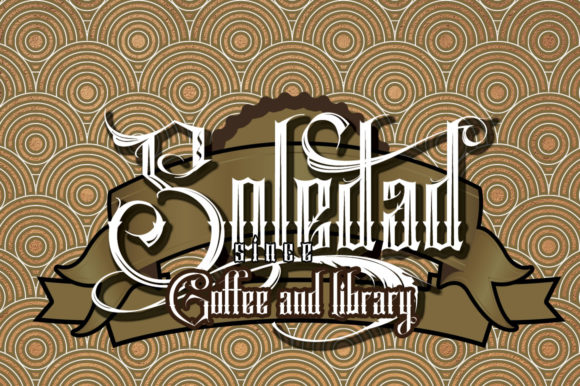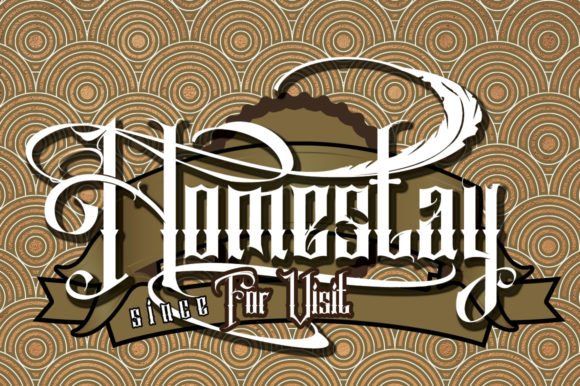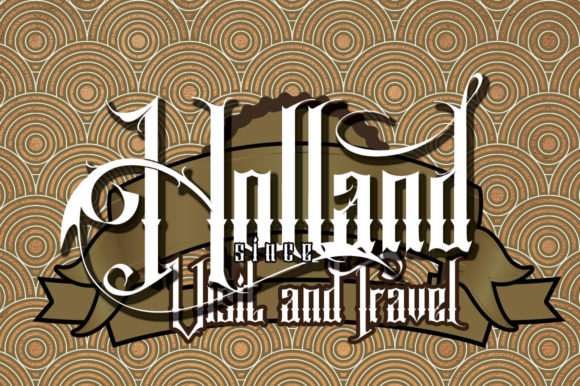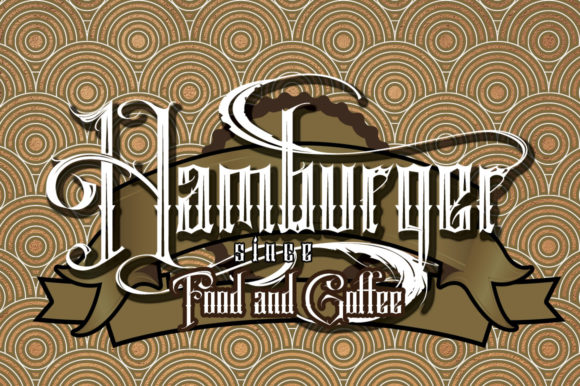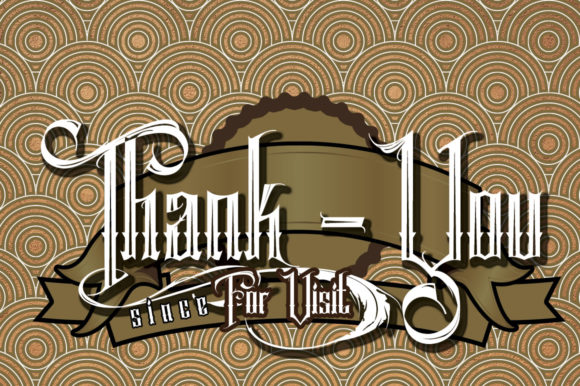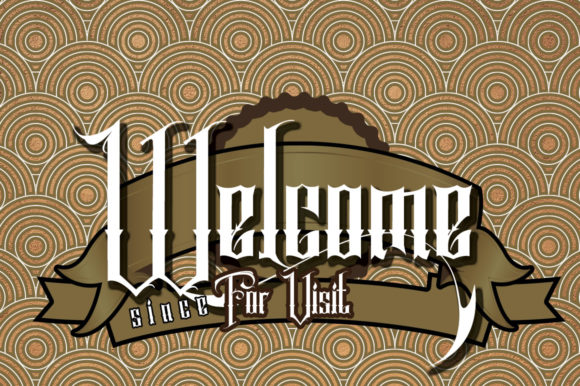
The Blackfire Font: A Striking Typeface to Elevate Your Design
The Blackfire font is a striking typeface that boasts decorative characters with a slightly elegant feel. Its unique design makes it perfect for making your design stand out, whether you’re working on a branding project, a craft tutorial, or a creative hobby.
- ✨ Unique and elegant design that adds a touch of sophistication to any project
- ✅ Highly versatile and can be used for a variety of design applications, from logos to headings
- ✅ Well-designed characters with a high level of legibility, even at smaller font sizes
While the Blackfire font is an excellent choice for many design projects, there are a few quirks to be aware of:
- 🤔 Some characters may not work well in all contexts, such as body text or captions
- ⚠️ Limited use of OpenType features, which may limit its use in certain design applications
The Designer Inspiration Behind Blackfire Font
The Blackfire font was designed by a team of typographers who wanted to create a unique and elegant typeface that would add a touch of sophistication to any design. Inspired by classic luxury brands and high-end fashion labels, the Blackfire font is the perfect choice for designers who want to create a luxurious and sophisticated look.
Q: What is the Blackfire font best used for?
A: The Blackfire font is best used for designs that require a touch of elegance and sophistication, such as luxury branding, high-end fashion labels, and creative designs.
Q: Is the Blackfire font suitable for body text?
A: While the Blackfire font is highly legible, it’s not recommended for body text due to its decorative nature. It’s best used for headings and titles.
Q: Is the Blackfire font available in different styles?
A: Yes, the Blackfire font comes in different styles, including regular, bold, and italic. You can experiment with different styles to find the perfect look for your design.